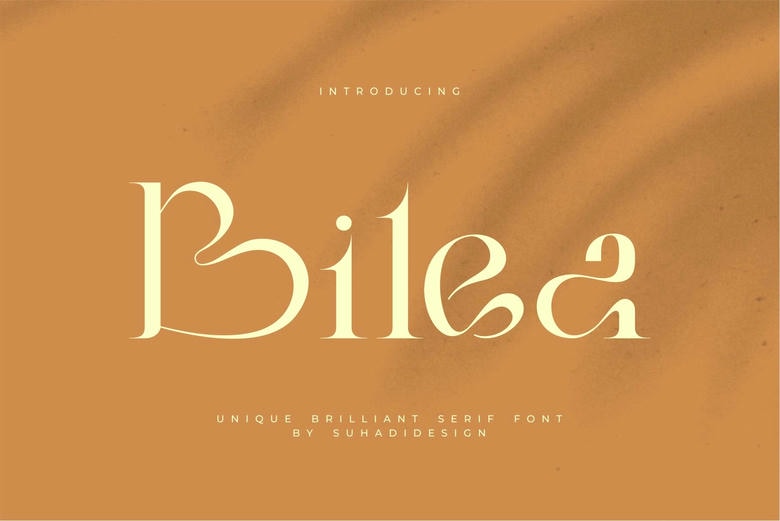
Bilea Font
Bilea is a special and a brilliant serif font which mixes elegance, creativity and effortless sophistication in one and the same. The elegant and stylish typography with smooth and elegant curves and contrasting sharp edges establish an equilibrium of the images that is reminiscent and eye-catching at a single glance.
Created with the most iconic branding in mind, Bilea is stylish and modern yet has the unaltered charm of traditional serif typeface. The fine lines and delicate movement of its calligraphy makes it perfect to apply to projects involving class and elegance.
Best suited to editorial layouts and fashion work, logo design, as well as premium packaging, Bilea takes any brand to its next level with its premium, high-end look. This font can make any headlines you can think of look bold and the accents high-elegant.
Bilea Serif Font